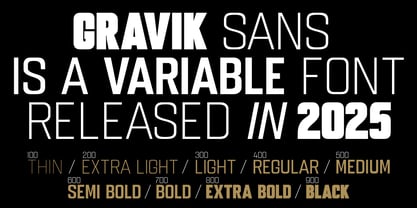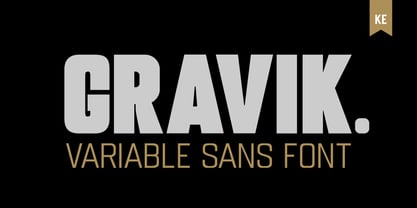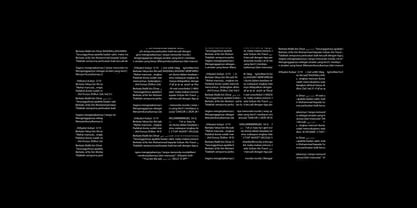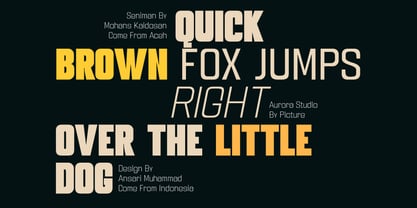
Gravik Sans Variable
by Kaidosan
The Gravik Sans Variable Font Family was designed by Muhammad Ansari and published by Kaidosan. Gravik Sans Variable contains 1 styles. More about this family
Gravik Sans Variable is a contemporary sans-serif typeface crafted for flexibility, clarity, and modern aesthetics. Designed as a fully variable font, it allows smooth transitions across a wide range of weights—from delicate thin styles to powerful bold expressions—offering exceptional control and creative freedom. With its clean geometry, balanced proportions, and refined letterforms, Gravik Sans Variable delivers a professional look suitable for branding, editorial design, digital interfaces, and print applications. Whether used for impactful headlines or readable body text, this typeface adapts beautifully to any visual environment, maintaining consistency and elegance across all media.
Designers: Muhammad Ansari
Foundry: Kaidosan